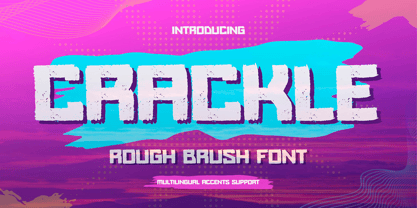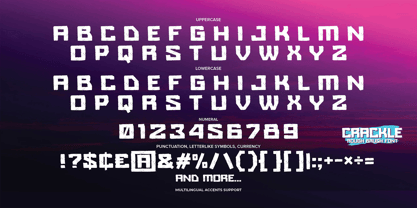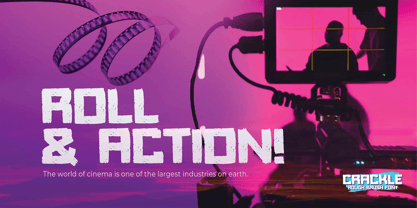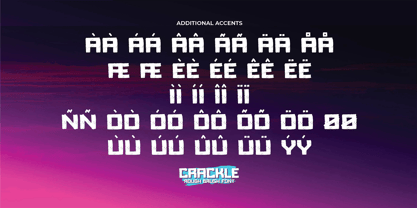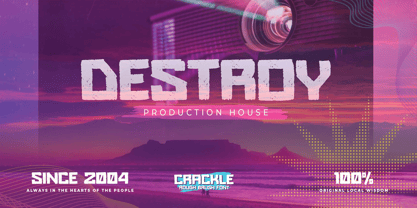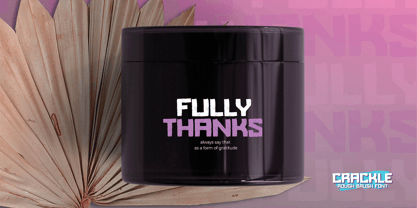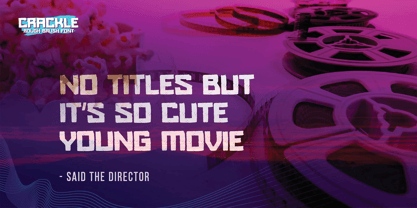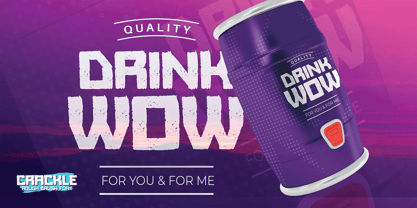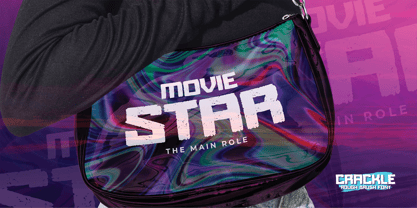
Crackle
par Gassstype
La famille de polices Crackle a été conçue par Abdul Malik Wisnu et publiée par Gassstype. Crackle contient 1 styles. En savoir plus sur cette famille
CRACKLE – A Rough Brush Font that embodies a modern style with dramatic movement, written casually and quickly. This font is ideal for labels, posters, and projects, giving designs a modern, authentic, and unique appearance. Perfect for a variety of applications, including quotes, DIY projects, branding, packaging, greeting cards, websites, photography overlays, signs, scrapbooking, tags, and much more! CRACKLE features a textured and strong characteristic, providing a more natural look.
Concepteurs: Abdul Malik Wisnu
Fonderie: Gassstype